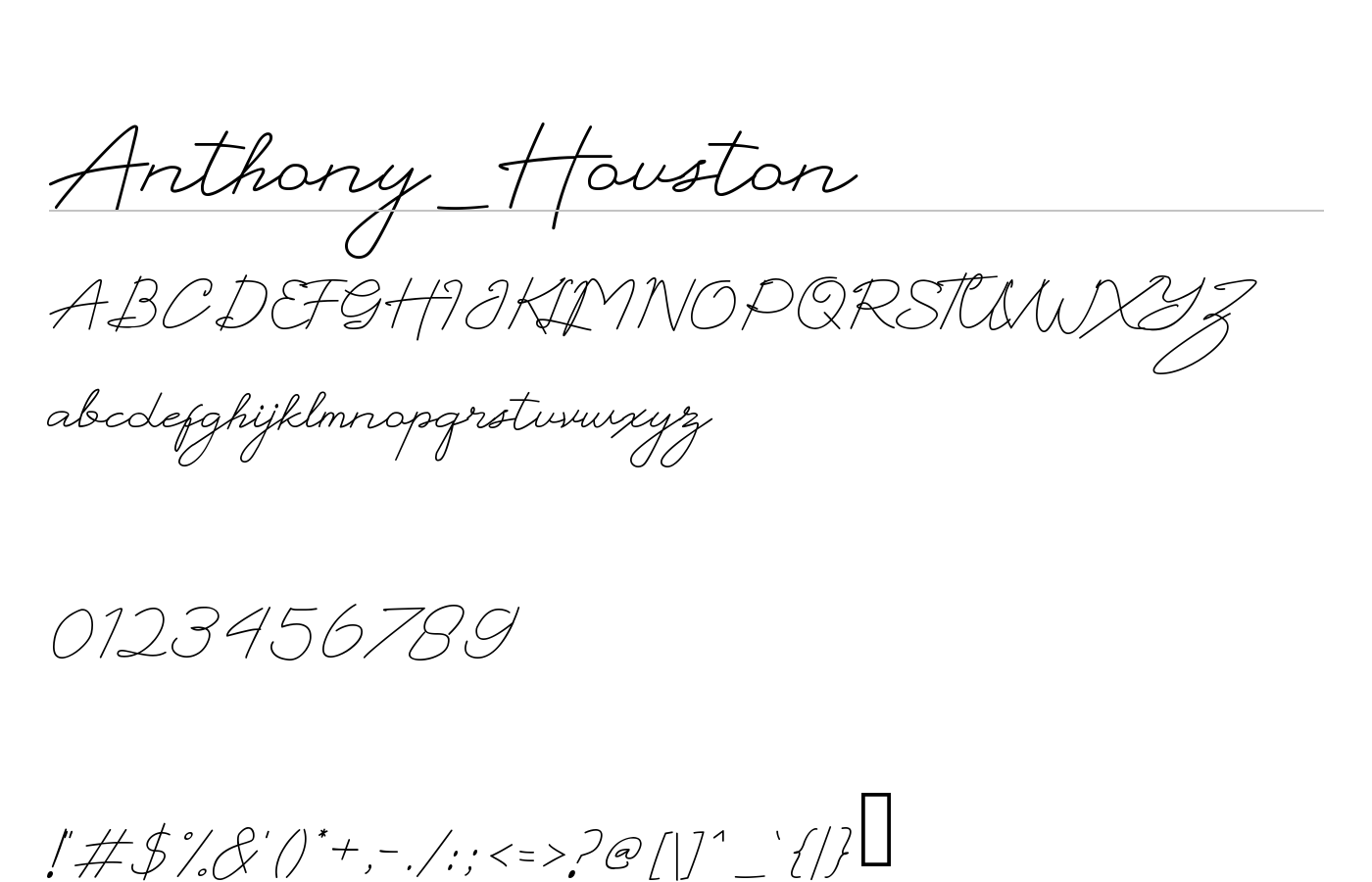
Anthony_Houston is a delicate, handwritten script font with a light weight and elegant flow. Its slender, slightly slanted letterforms feature smooth, organic strokes that convey a personal and graceful touch, making it ideal for invitations, branding, and projects that seek a refined yet approachable feel. This font shines in creative and stylish contexts where a warm, handwritten aesthetic is desired.
Anthony_Houston Font
About Anthony_Houston Font